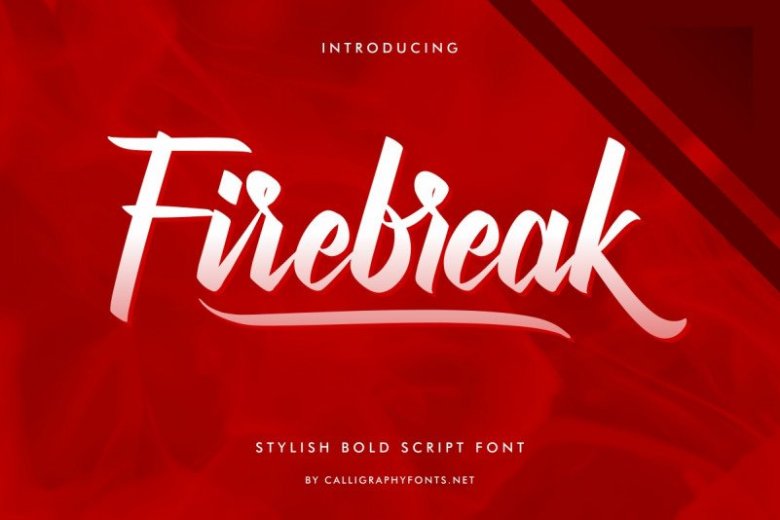
Firebreak Font
Firebreak Calligraphy Font
Firebreak Calligraphy Font is a bold handmade calligraphy script font by CalligraphyFonts.net. Download Firebreak Font for any commercial purposes now!